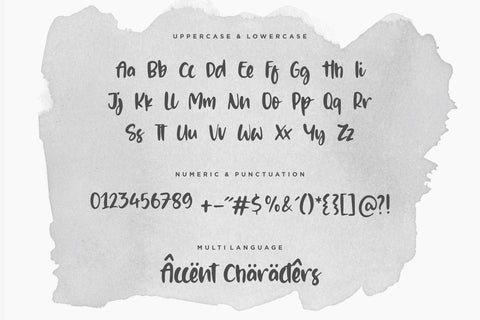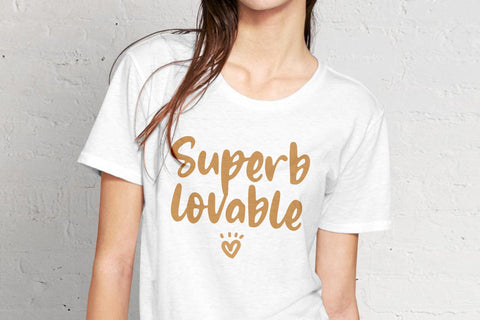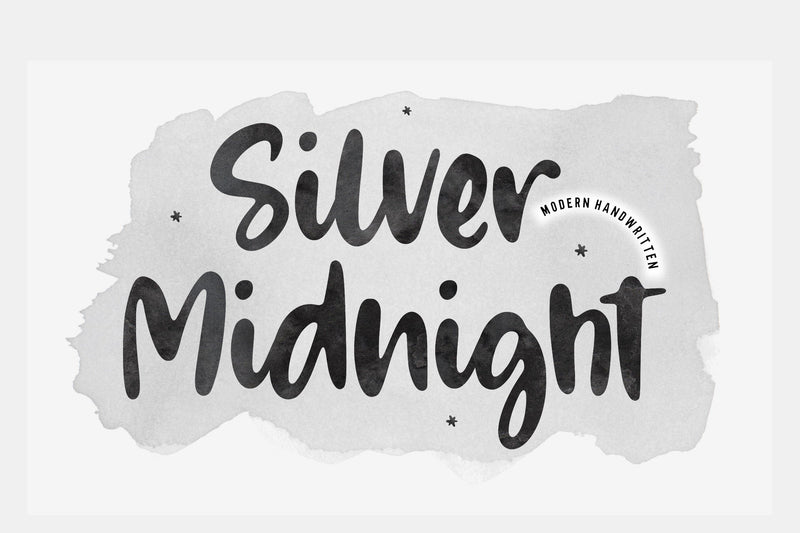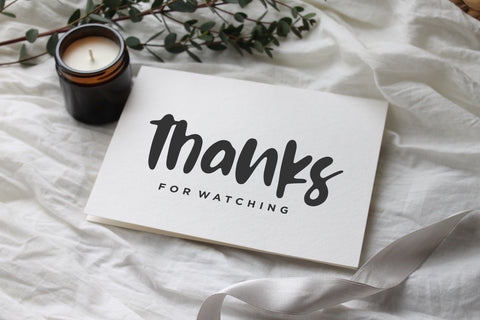
Silver Midnight Modern Handwritten Font
Proudly Present, Silver Midnight Font.
Silver Midnight is a Modern Handwritten Font.
Silver Midnight is a lovely and timeless handwritten font. It is the best choice for creating eye catching logos, branding and quotes. Every letter has a unique and beautiful touch, which will make your design come alive!